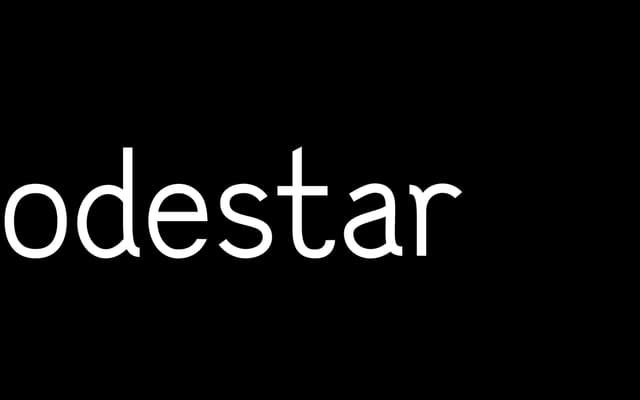
A neo-grotesque sans with monospace-esque proportions, built for legibility at small sizes and impact at display scale.
Lodestar sits between past and present with a simple geometric structure that reads at body sizes without losing its presence at headline scale. The single style covers uppercase, lowercase, numerals and an expanded punctuation set. Its monospace-influenced spacing gives it a fixed, methodical rhythm unusual for a grotesque.
Described as neo-grotesque with a monospace-esque quality and simple geometric structure, placing it within the grotesque sans tradition but with a contemporary geometric influence.